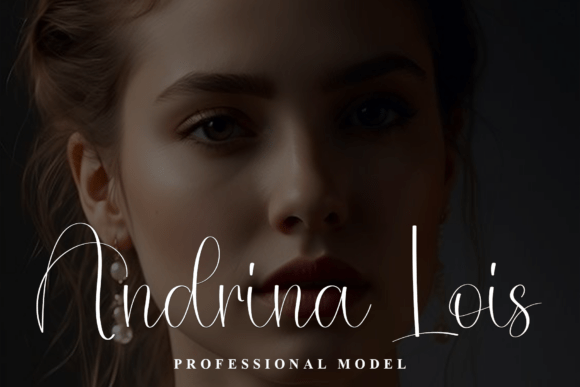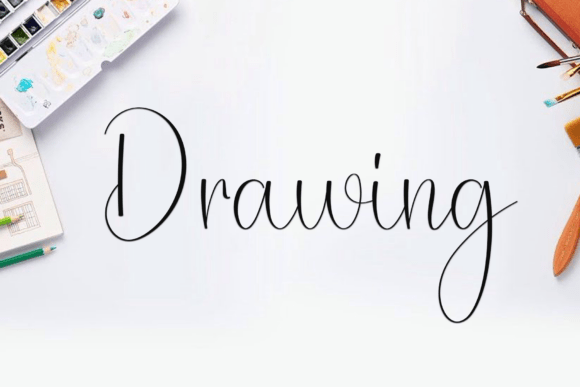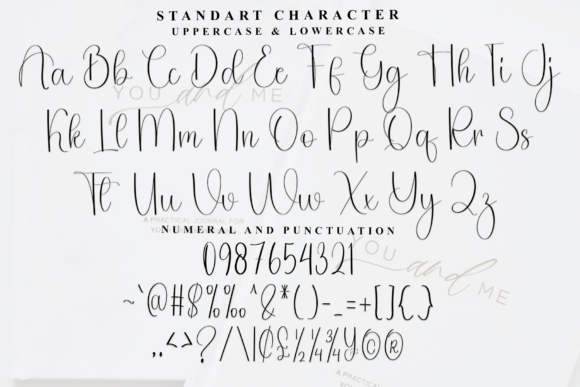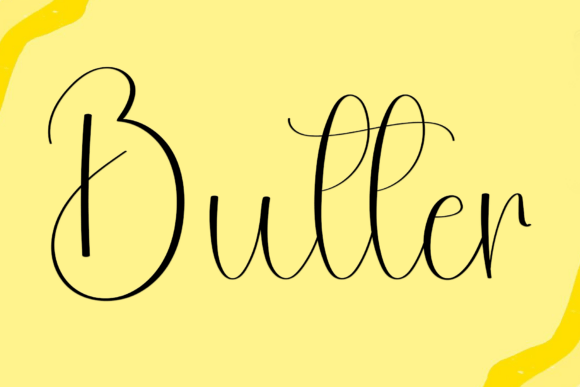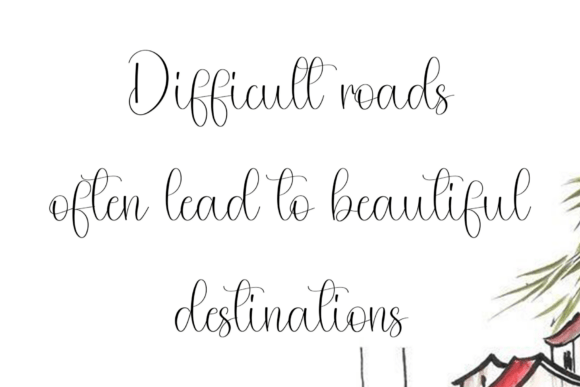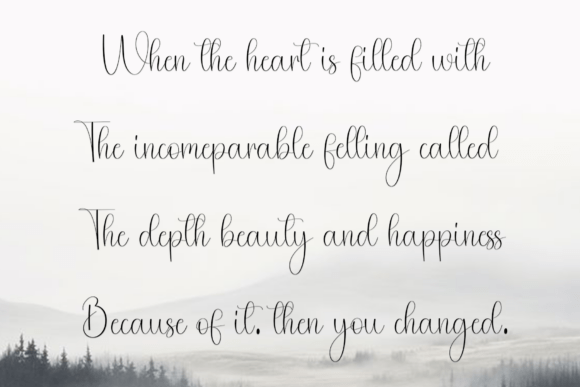
The Diamond Font: A Game-Changer for Designers and Crafters
With its soft, unique touch and distinctive strokes, the Diamond font is a beautiful and eye-catching addition to any design project. Its versatility and wide range of characters make it perfect for various applications, from crafts to creative works.
What I Love About Diamond Font
- ✨ Unique and distinctive strokes that give it a special character
- ✅ Wide range of characters, making it perfect for various design projects
- 💫 Soft and eye-catching design that’s sure to grab attention
While the Diamond font is an amazing addition to any design project, there are a few things to keep in mind:
- ⚠️ Some characters may require manual kerning for optimal results
- Experiment with OpenType features, such as stylistic alternates, to add some extra flair to your design
- Explore the glyphs and OpenType features to add some extra creativity to your design
The Story Behind Diamond Font
The Diamond font was designed with the intention of creating a unique and eye-catching typeface that would stand out in any design project. The designer, inspired by the beauty of natural diamonds, aimed to capture the essence of luxury and sophistication in a font that would be both versatile and elegant.
Q: What is the Diamond font best used for?
A: The Diamond font is perfect for design projects, crafts, and other creative works. Its unique and eye-catching design makes it ideal for titles, headings, and other display text.